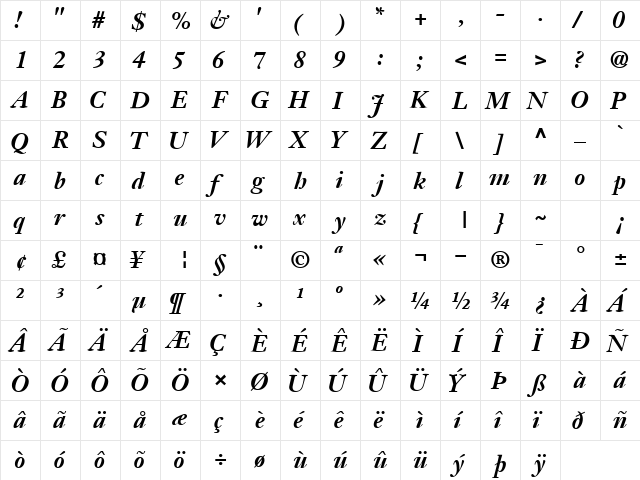
JansonSSK Bold Italic Font Preview
Design Context for JansonSSK Typeface
JansonSSK offers clean, dependable letterforms without strong stylistic allegiance, making it a practical choice for designers who need flexibility. The dynamic lean of this cut emphasises speed and emphasis in any layout. The heavy weight commands attention and anchors typographic hierarchies.
Pro Tip: Try JansonSSK for annotation and caption copy alongside an upright companion — the contrast in angle creates a dynamic but ordered typographic system.